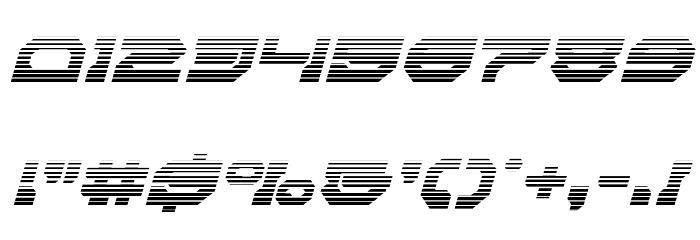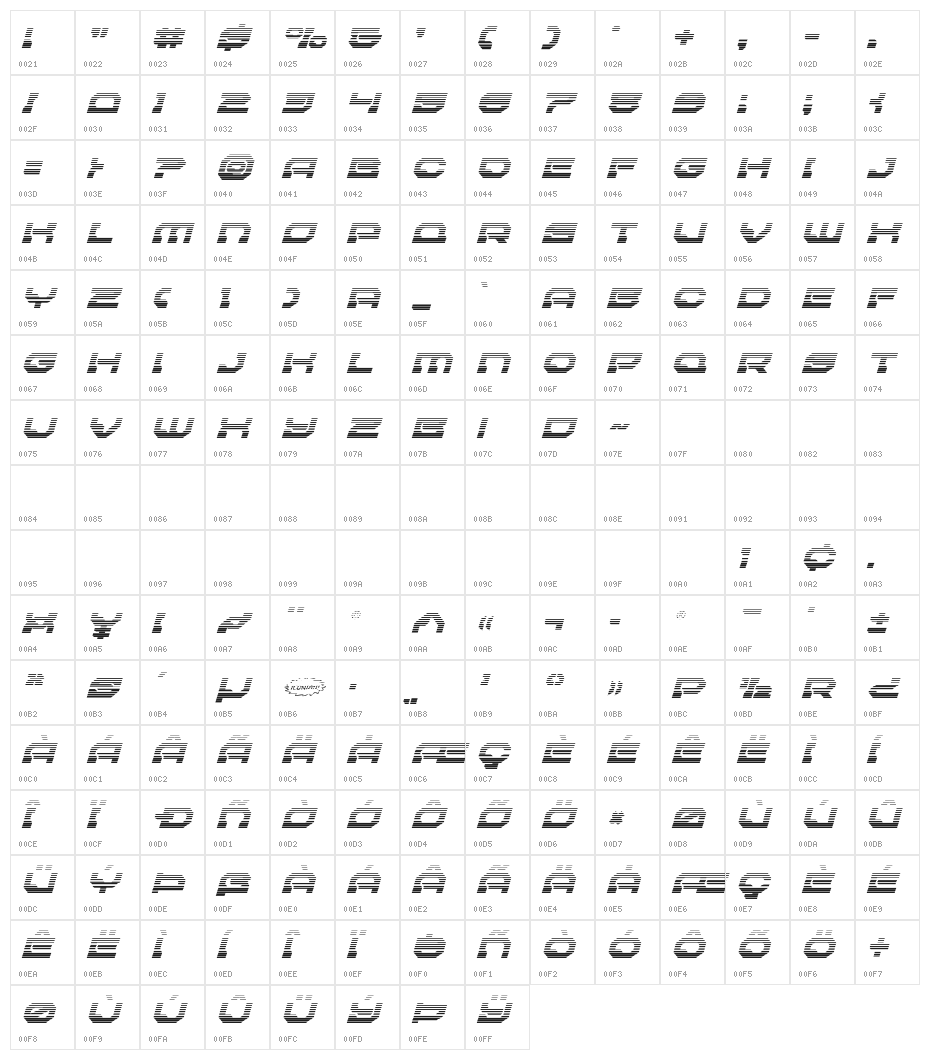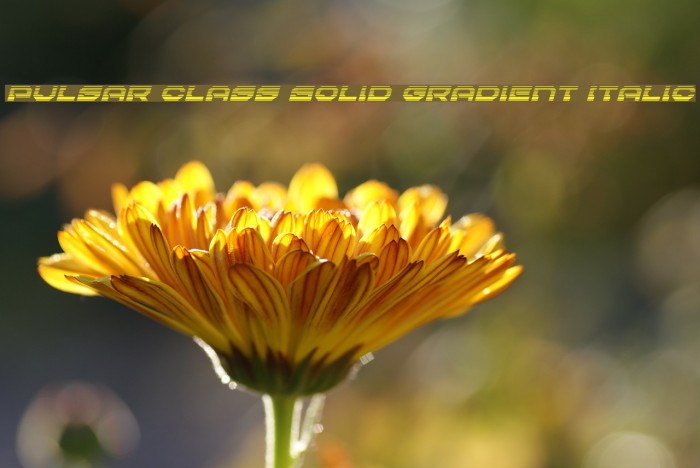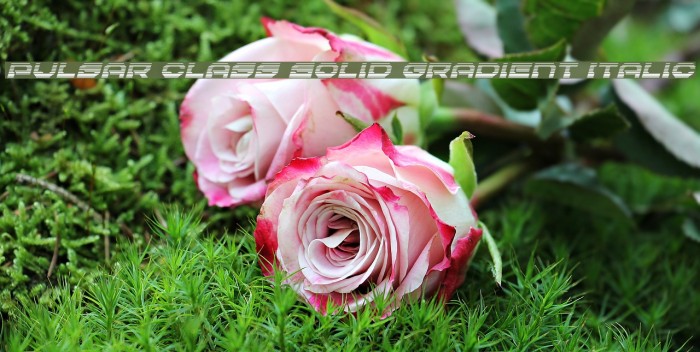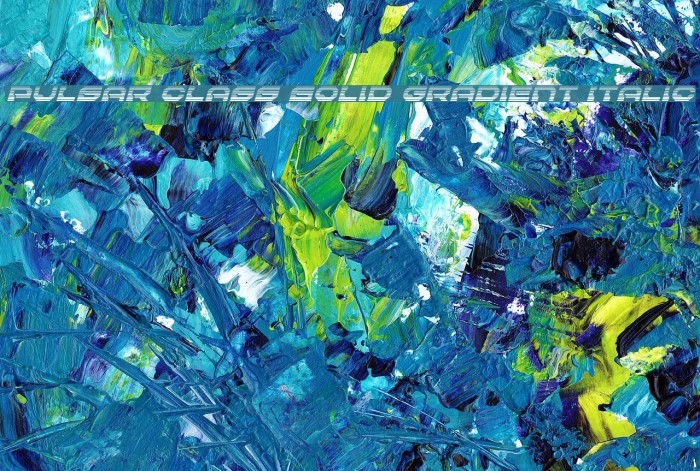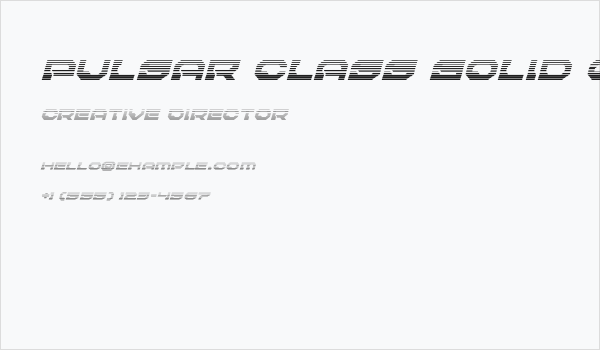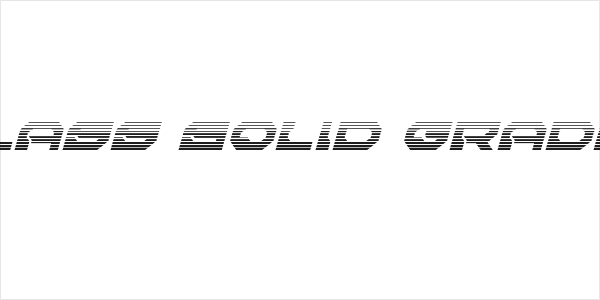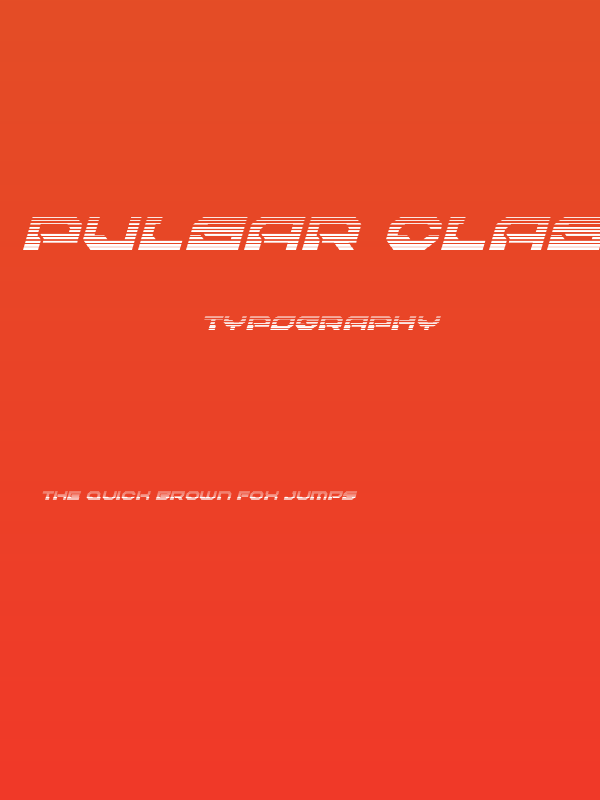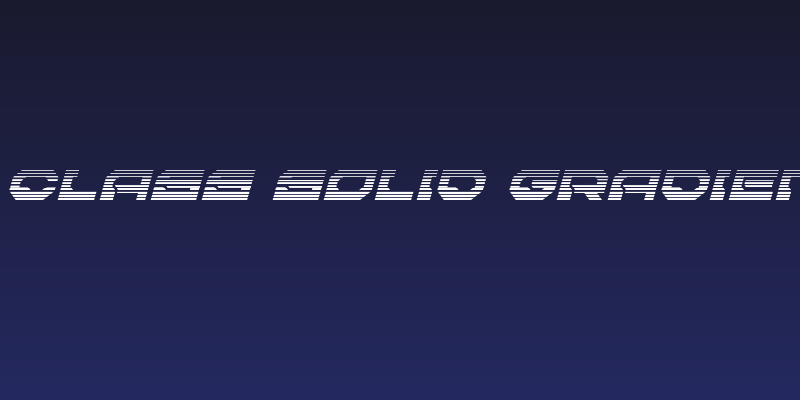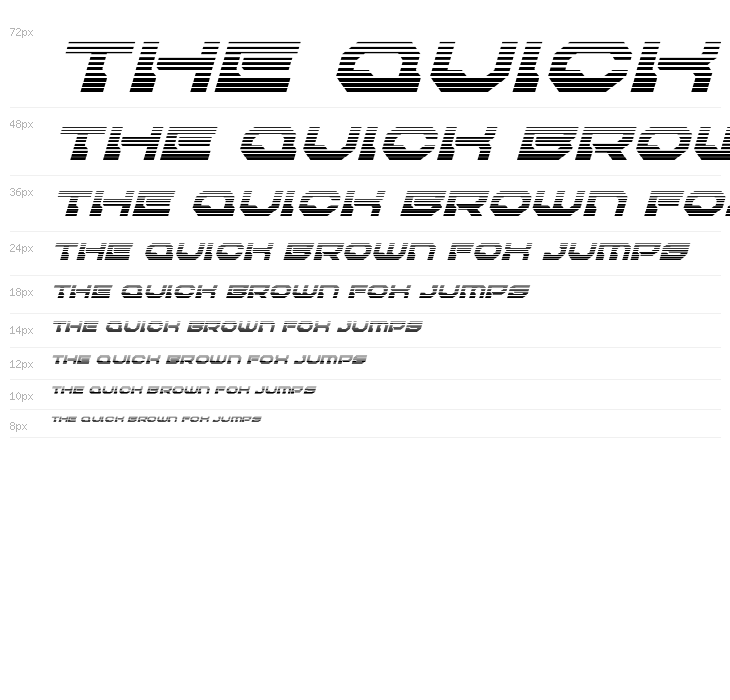
Pulsar Class Solid Gradient Italic Font
Pulsar Class Solid Gradient Italic Description
This font features a futuristic and dynamic design, characterized by its solid gradient lines that create a sense of motion and speed. The italicized style enhances its modern and sleek appearance, making it ideal for projects that require a cutting-edge look. The characters are bold and distinct, with a unique striped pattern that adds depth and visual interest. The font's geometric structure and angular forms contribute to its contemporary aesthetic, making it suitable for technology-themed designs, sci-fi projects, and innovative branding.
Proposed ProjectsIdeal for technology branding, sci-fi themes, futuristic posters, and innovative product packaging.